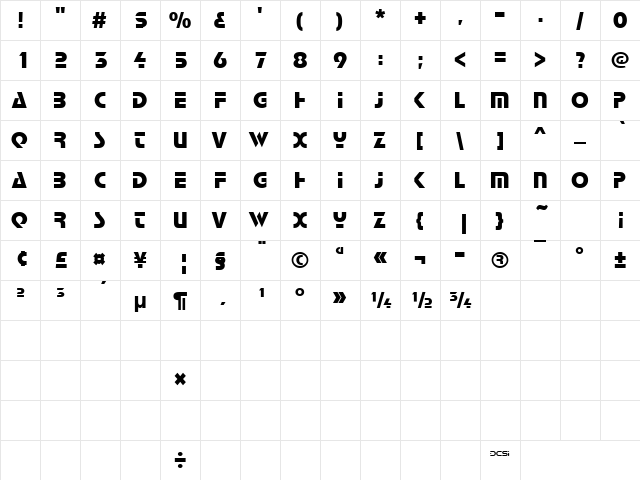
FFX Futurist Regular
Design Context for FFX Futurist Typeface
FFX Futurist channels digital-age aesthetics through its sharp, structured letterforms — ideal for brands that want to signal innovation.
Pro Tip: Use FFX Futurist in combination with a neutral sans for body text. Let it define the brand voice in headlines while keeping reading comfortable elsewhere.